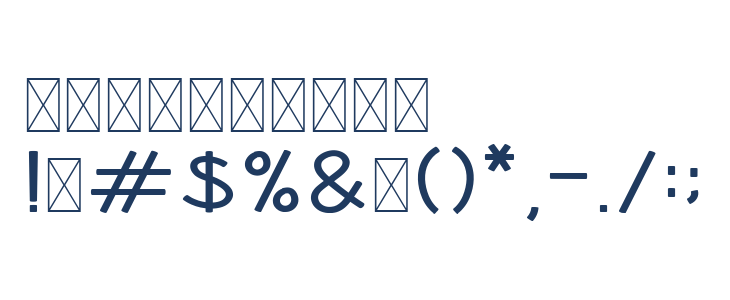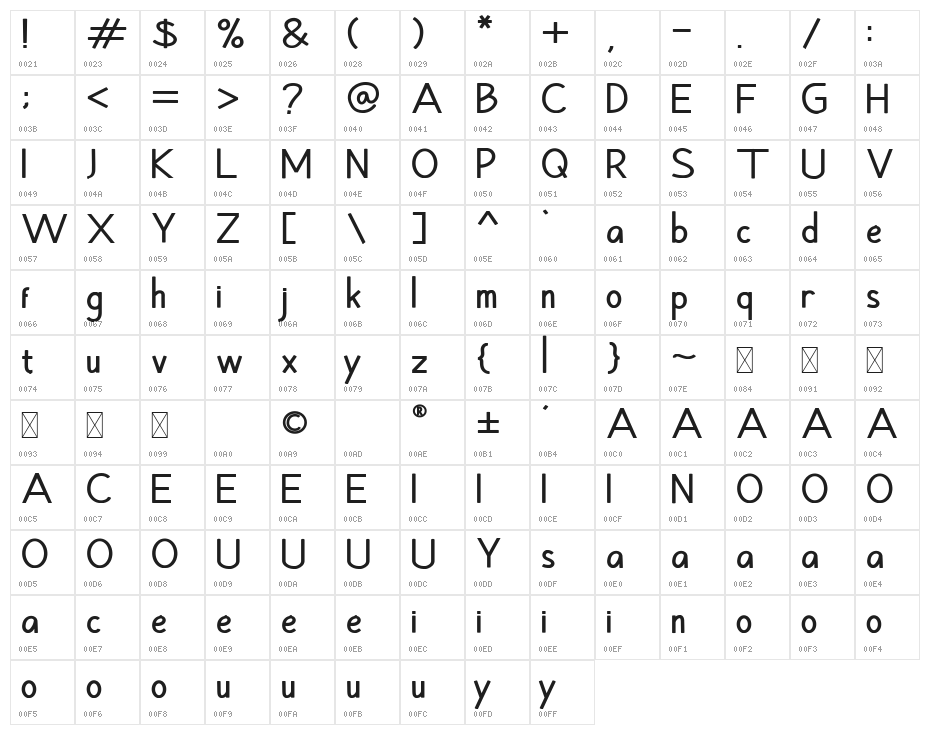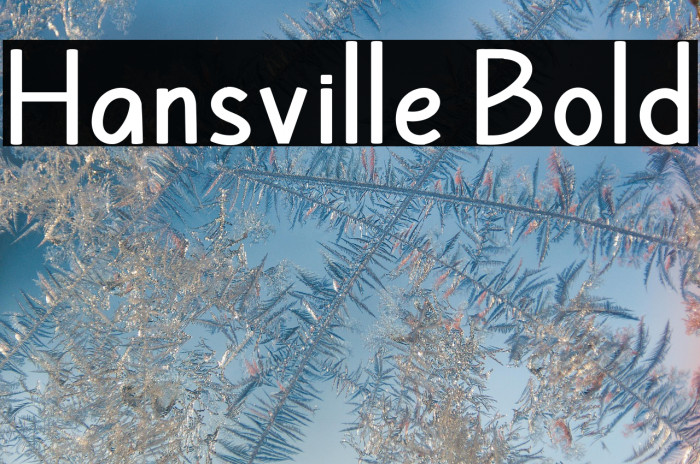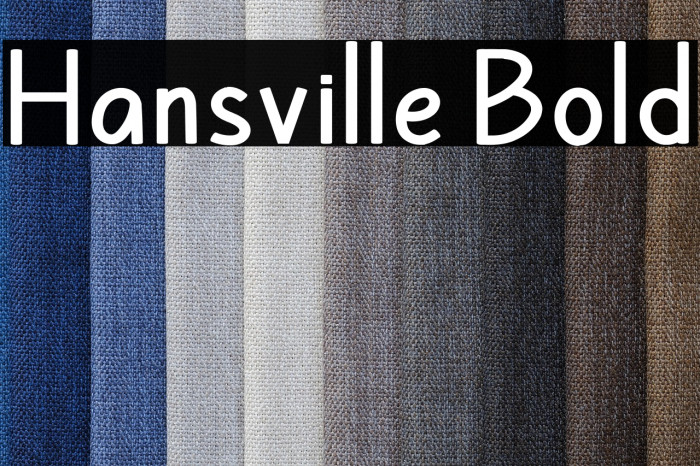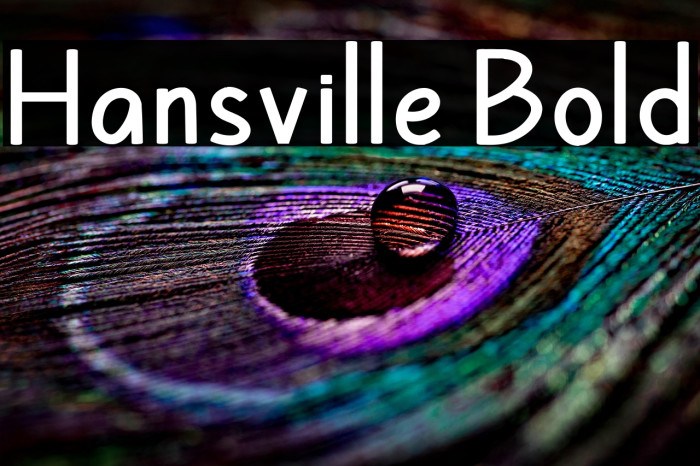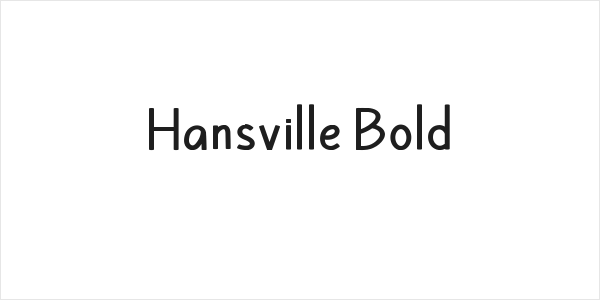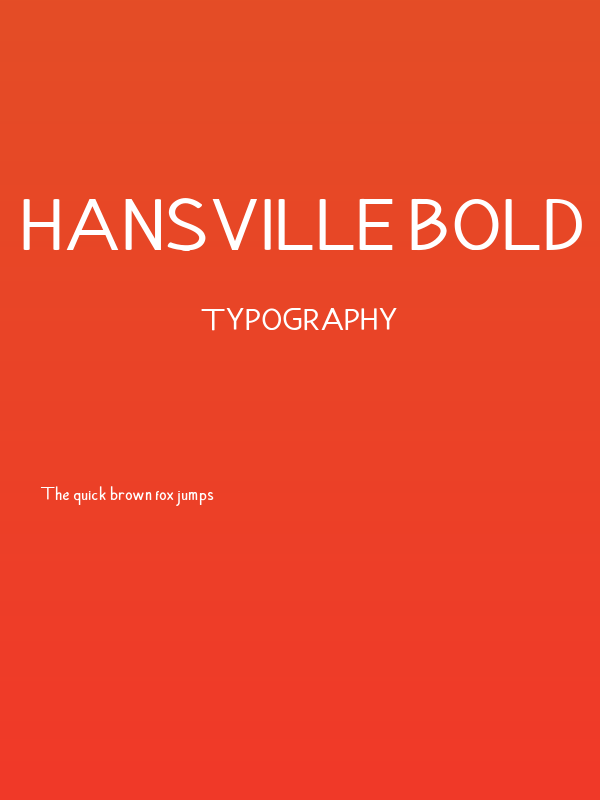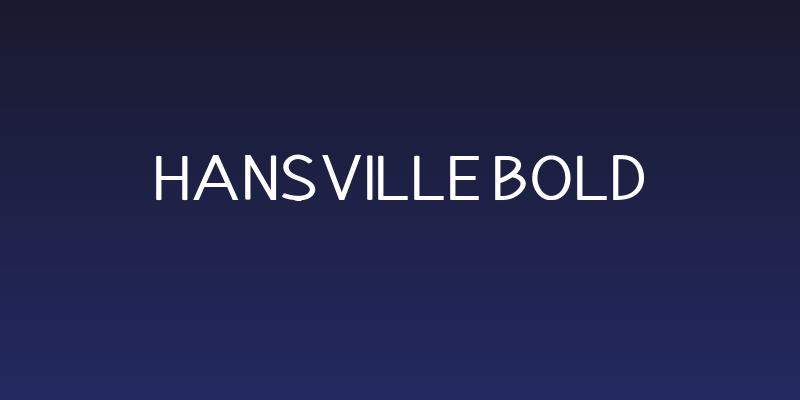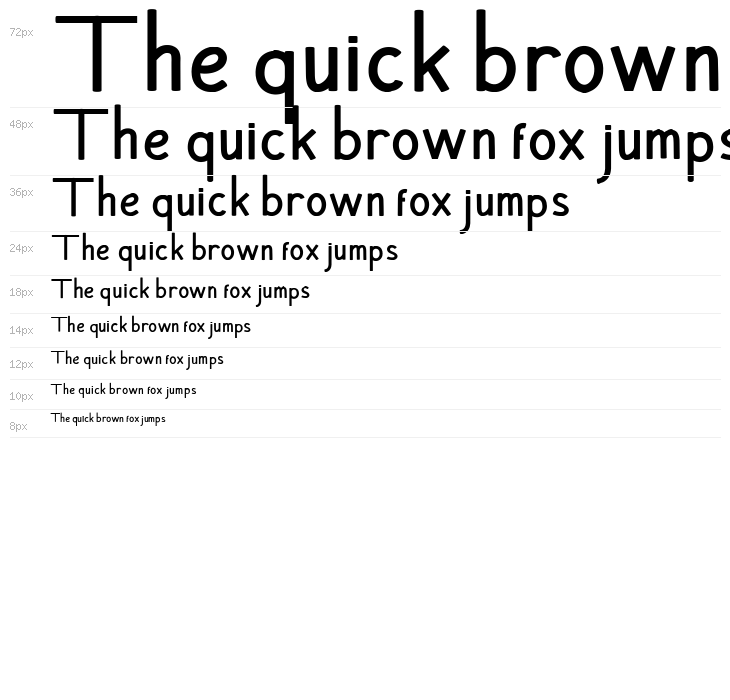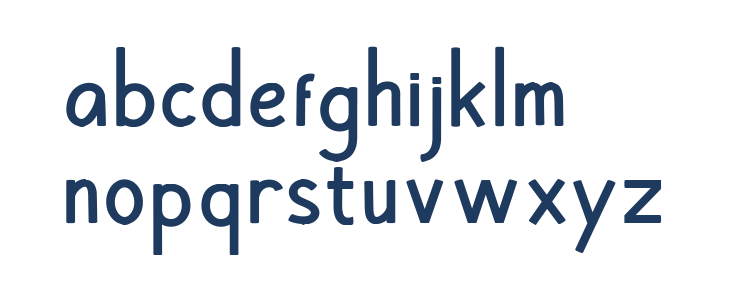
Hansville Bold Font
Hansville Bold Description
This font features a clean and modern sans-serif design with a bold weight. The uppercase letters are tall and slightly condensed, providing a strong and assertive appearance. The lowercase letters maintain a consistent stroke width, offering a harmonious and balanced look. The numerals are clear and legible, making them suitable for various applications. Special characters are well-defined, adding versatility to the font's use. The overall style is contemporary, making it ideal for modern design projects.
Use CaseHeadlines, Logos, Branding
Proposed ProjectsIdeal for branding, headlines, posters, and digital media where a strong and modern presence is desired.